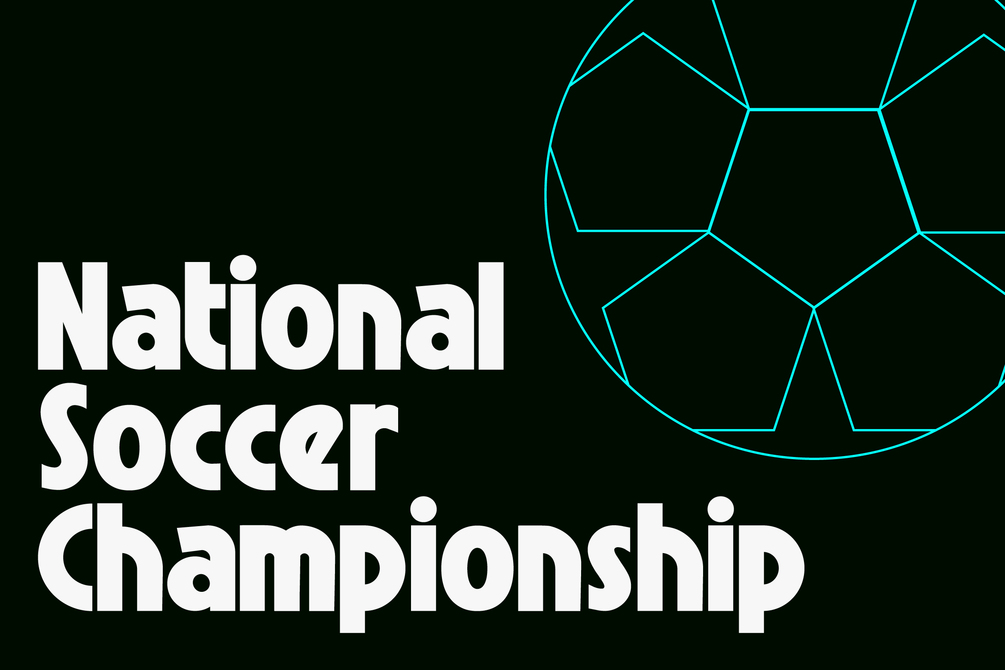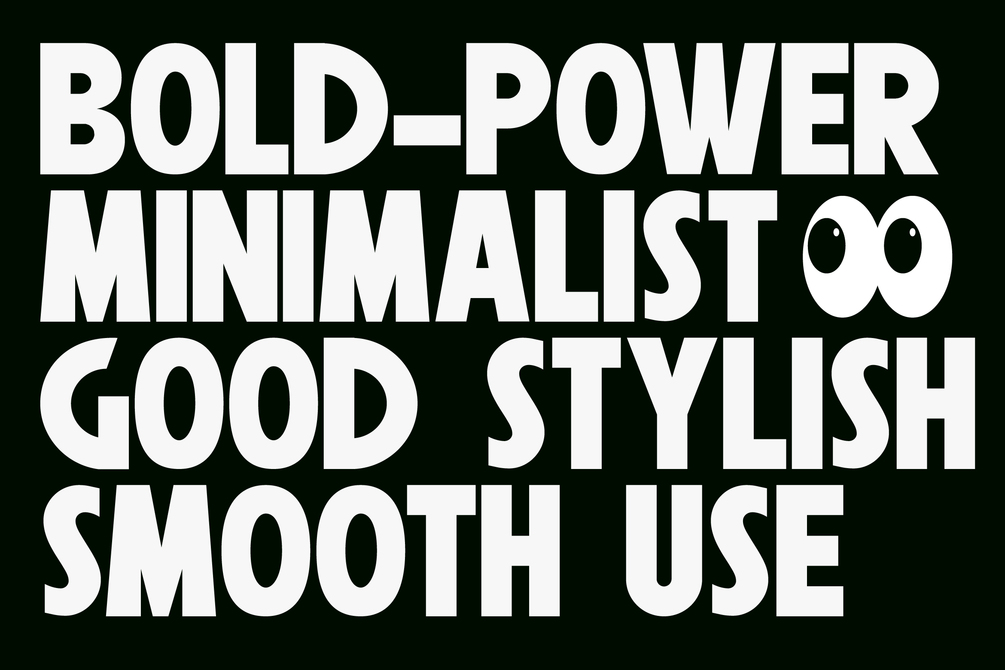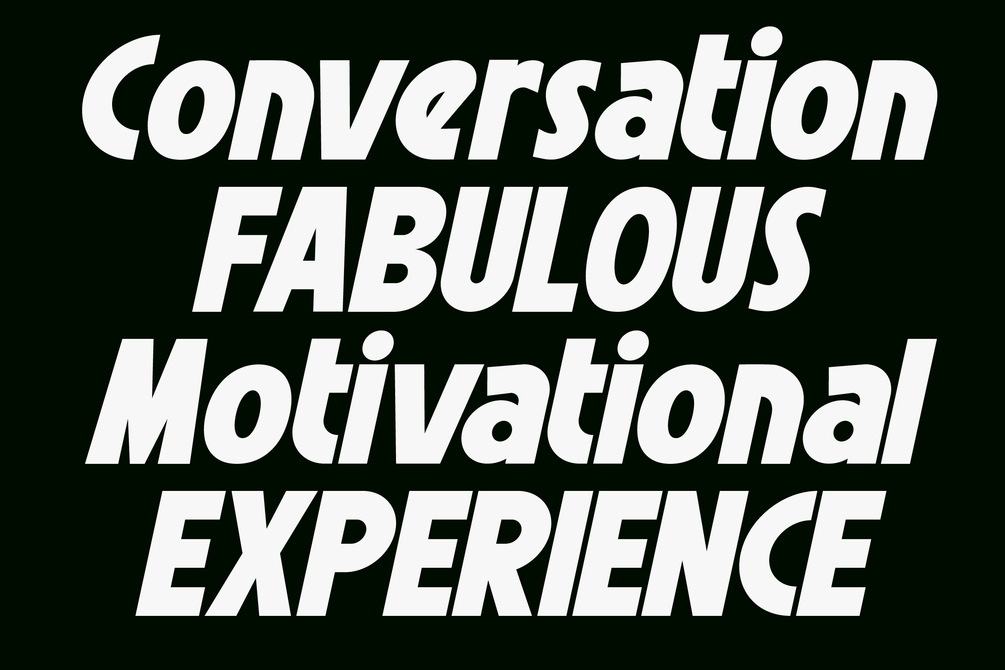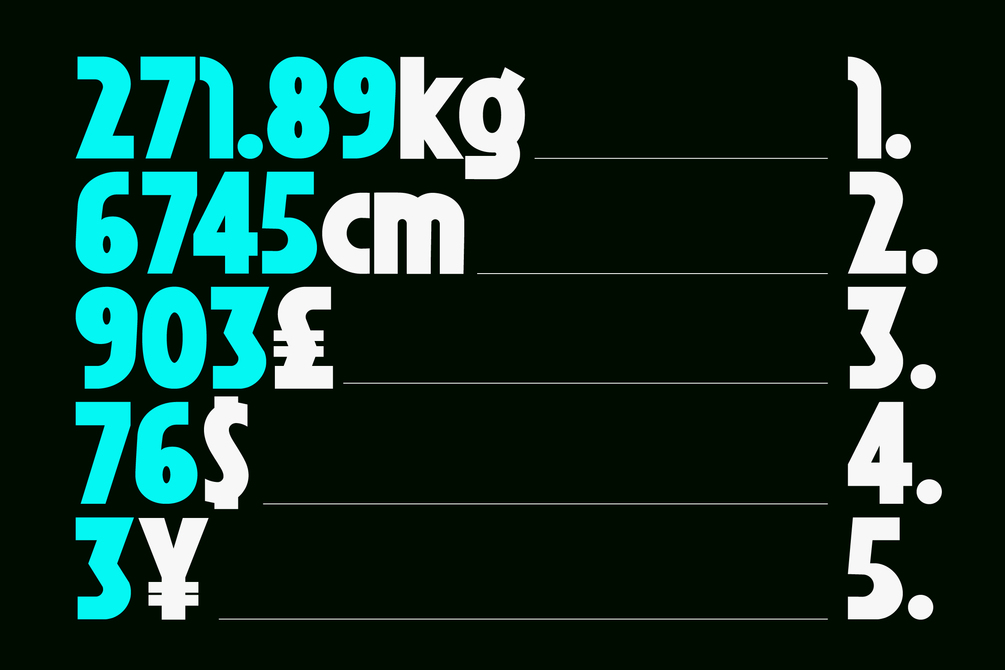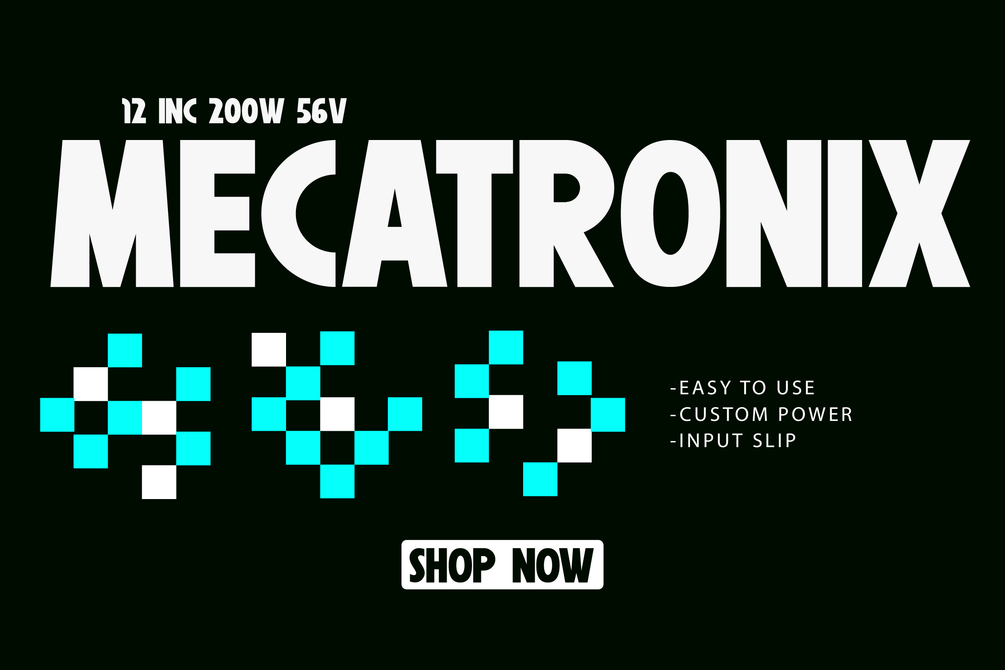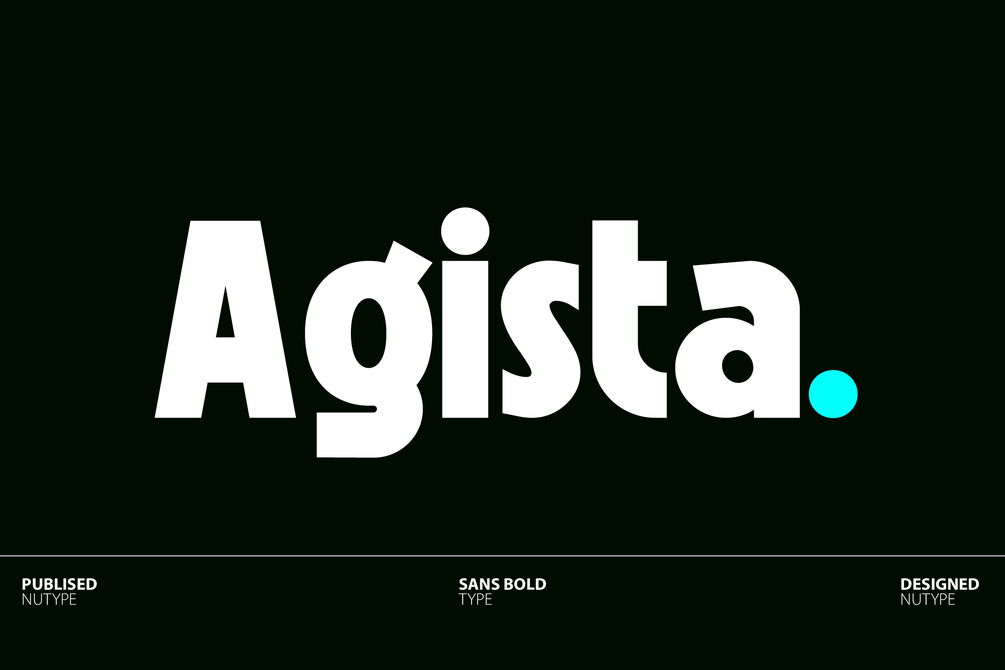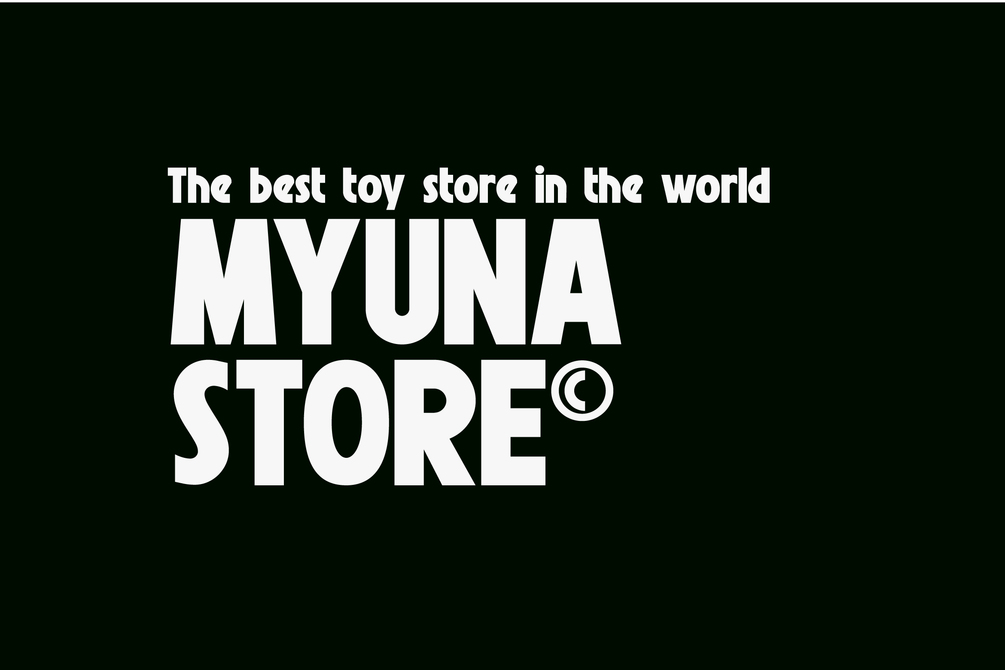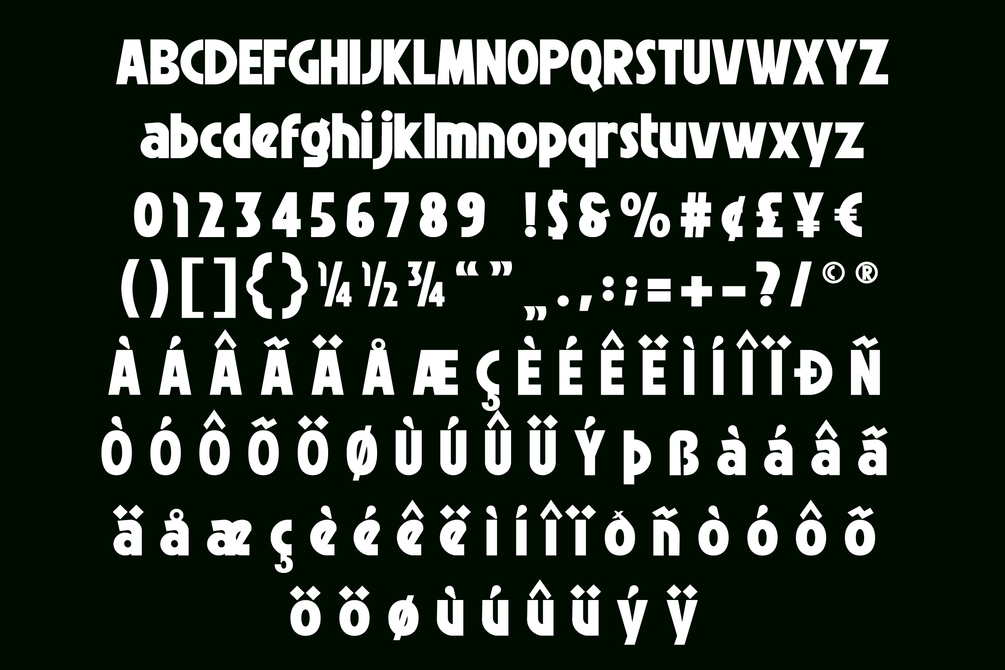
Agista - Sans Bold Type
Agista which has a strong and funny looking design. The font looks like sans but thick so it seems more funny. suitable for use in various media, book covers, posters, typography, promotions and other digital media.
+ Uppercase and lowercase letters.
+ Numbers and punctuation.